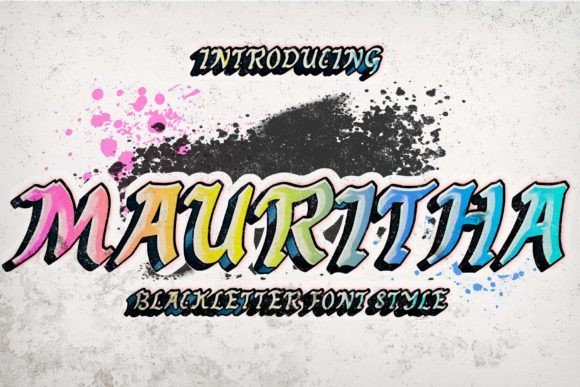
Welcome to the realm of Mauritha Font, an exquisite offering from the creative genius of Selvia Design. This remarkable blackletter font is a masterpiece that combines elegance, professionalism, and boundless versatility. With its captivating strokes and intricate details, Mauritha Font is the ultimate choice for those seeking to make a lasting impression.
Immerse yourself in a world where creativity knows no bounds, where Mauritha Font takes center stage as your trusted companion in artistic expression. Whether you're a seasoned designer or just starting your creative journey, this font will ignite your imagination and elevate your designs to new heights.
With its comprehensive character set, encompassing uppercase, lowercase, numerals, punctuation, and multilingual support, Mauritha Font caters to a wide range of projects and applications. Logos, banners, posters, tattoos, branding, stickers, and more come to life with Mauritha's alluring presence.
Unleash your inner artist and capture the essence of the season with Mauritha Font. From the golden hues of autumn to the crisp air of winter, Mauritha Font perfectly captures the magic of the changing seasons. It's the ideal choice for creating enchanting designs that evoke a sense of nostalgia and warmth.
Step into the world of Mauritha Font and unlock a treasure trove of creative possibilities. Its versatility knows no limits, allowing you to explore an endless spectrum of design styles and themes. From the whimsical and playful to the sophisticated and elegant, Mauritha Font effortlessly adapts to your unique vision.